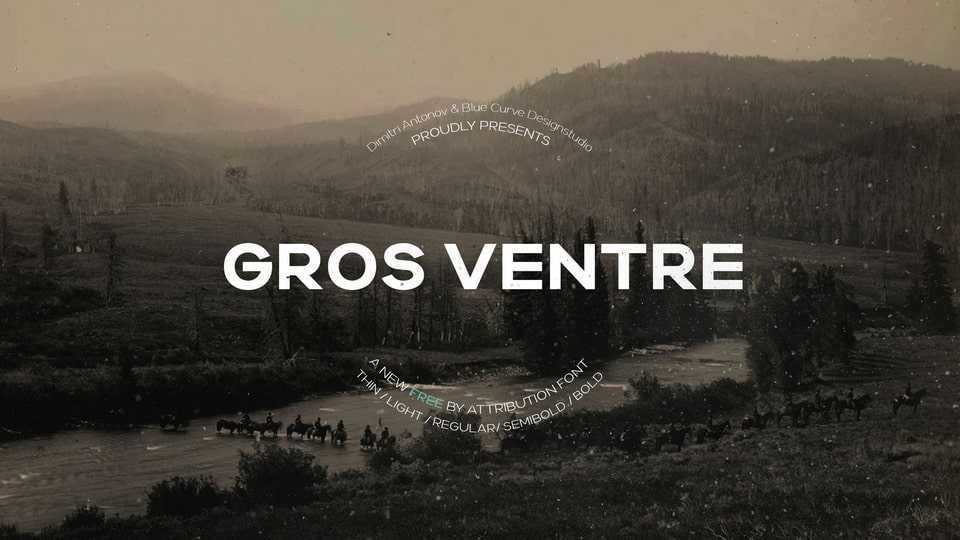
Download Gros Ventre font, a new free typeface from Dmitry Antonov and the Blue Curve Design Studio. It seems ordinary, but it’s not. It’s suitable for both accented and body text. It’s a versatile soldier.
Designer: Dimitri Antonov